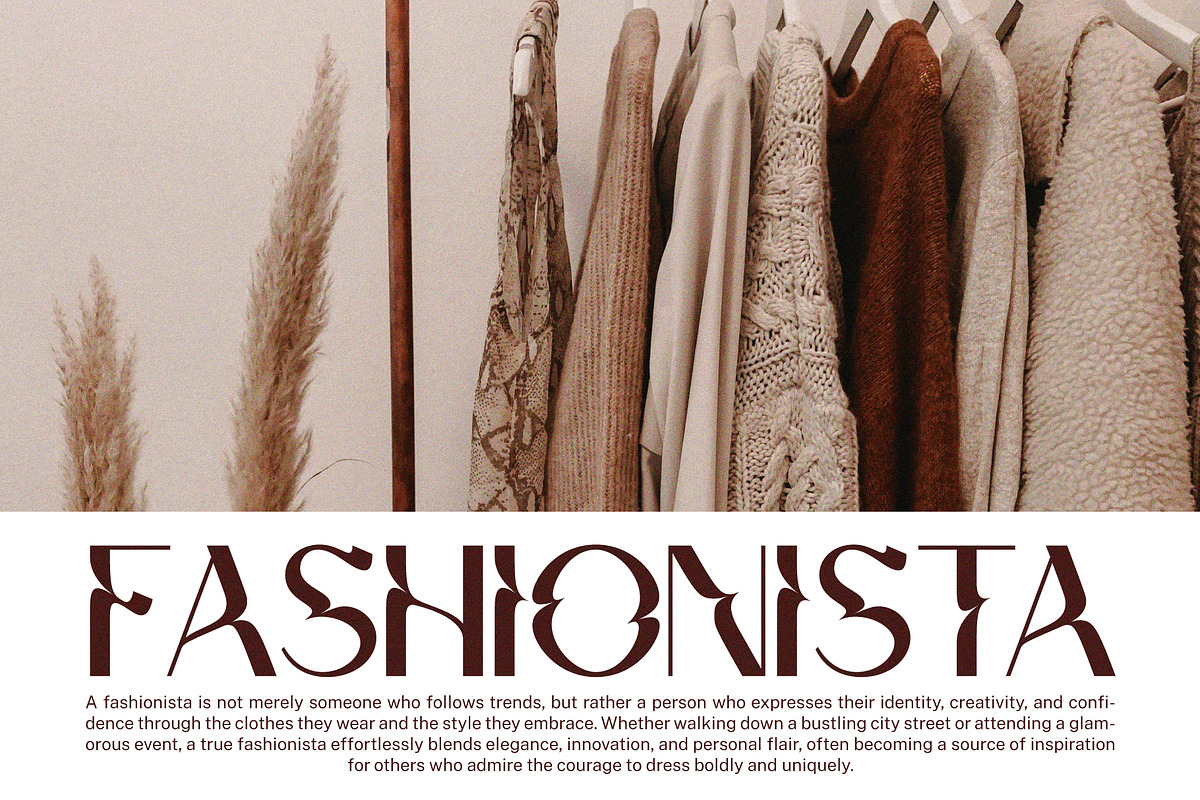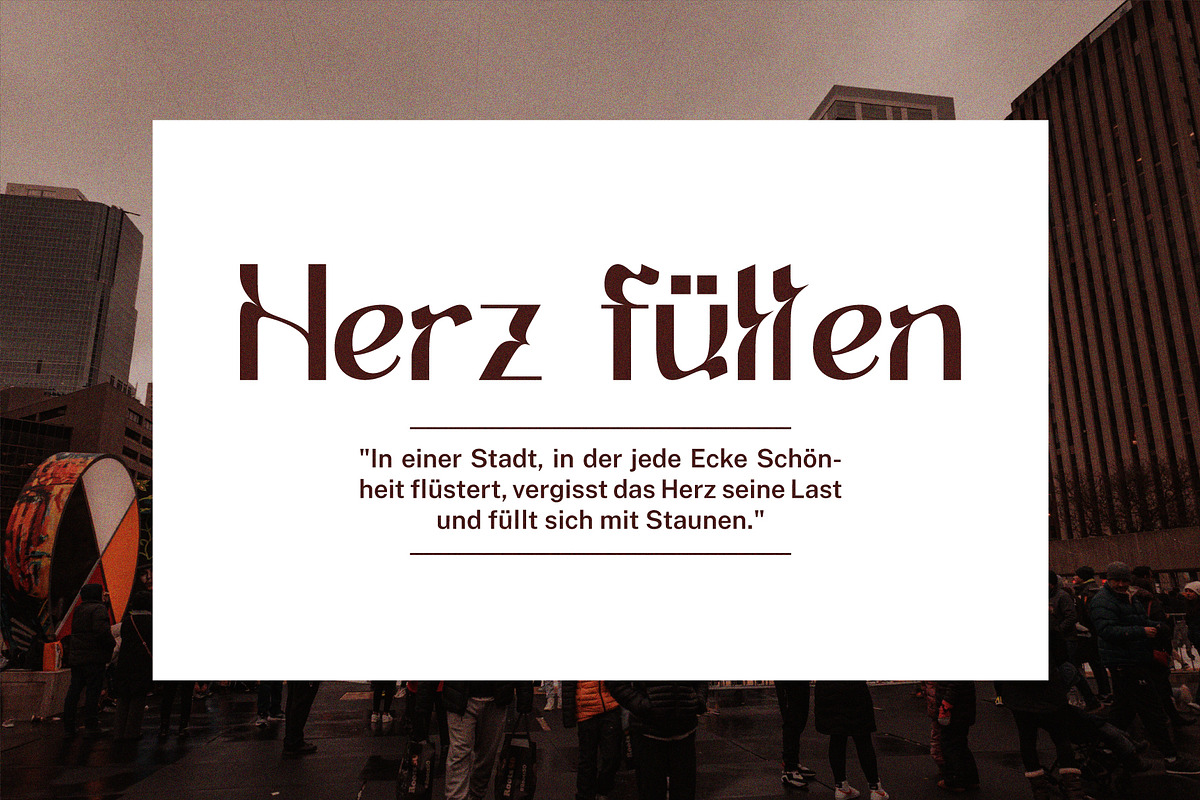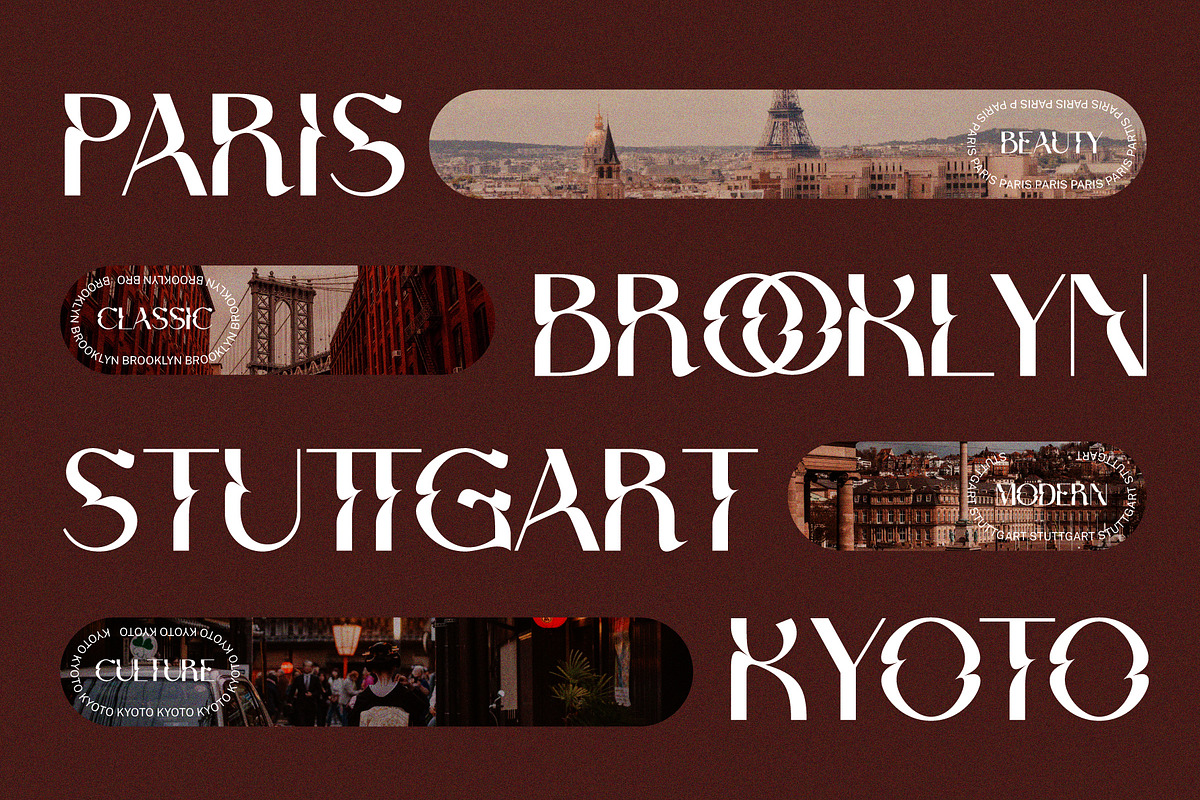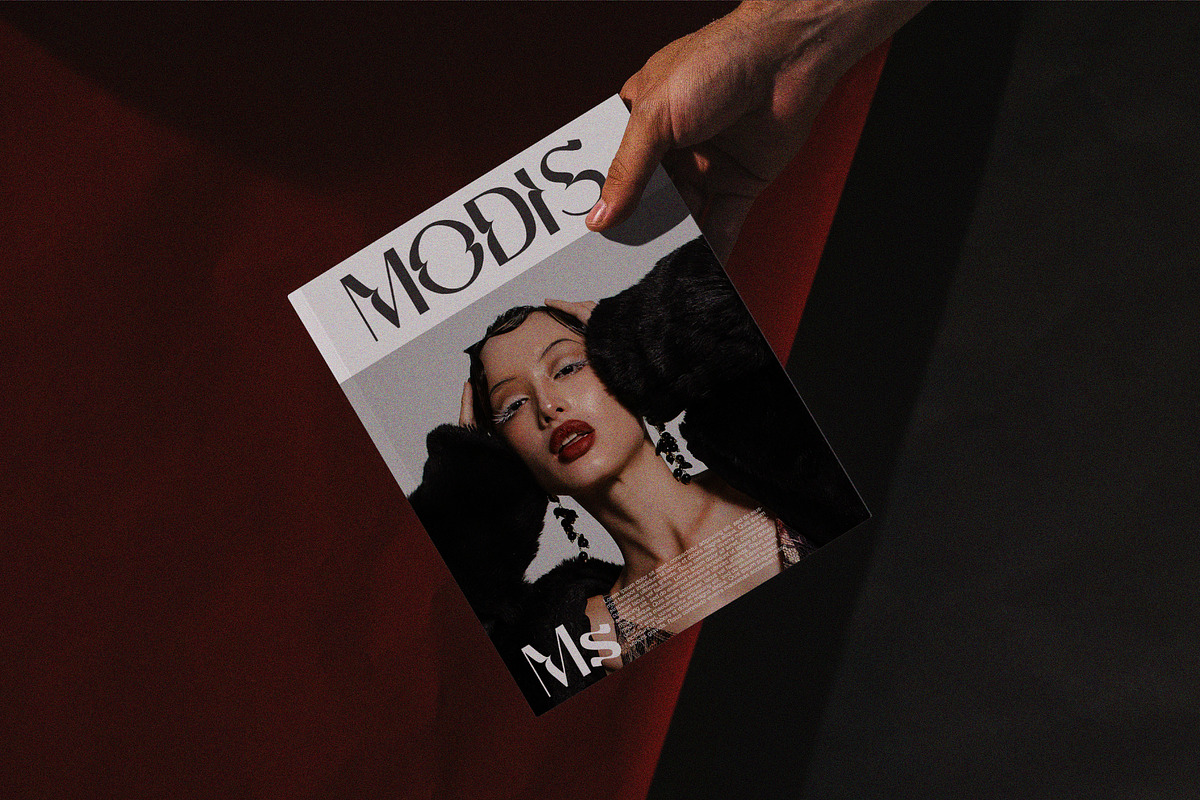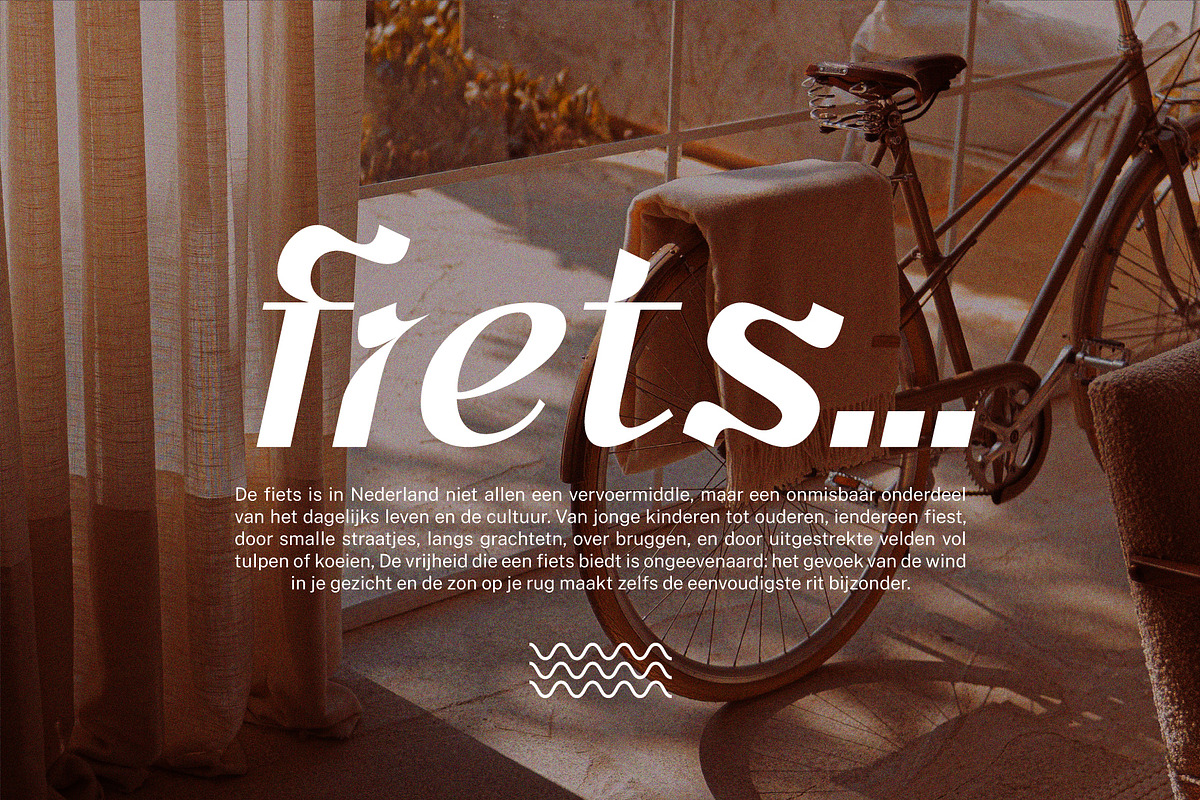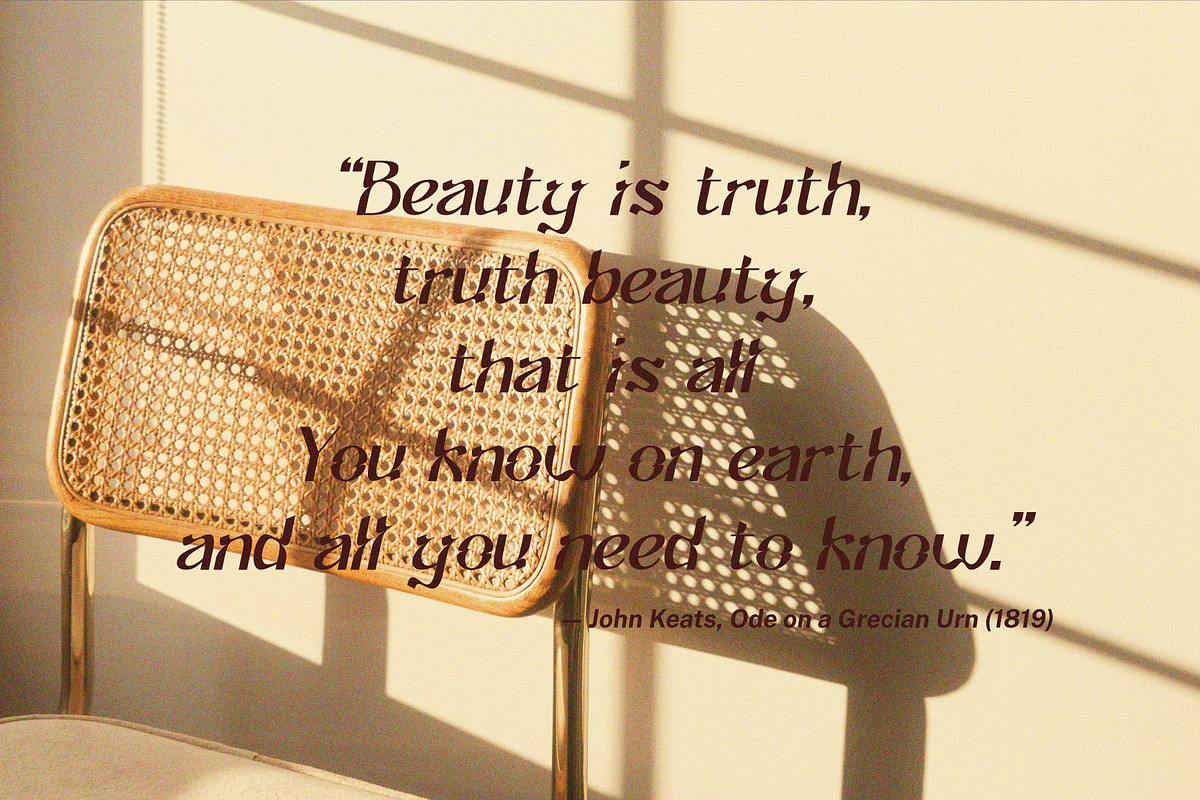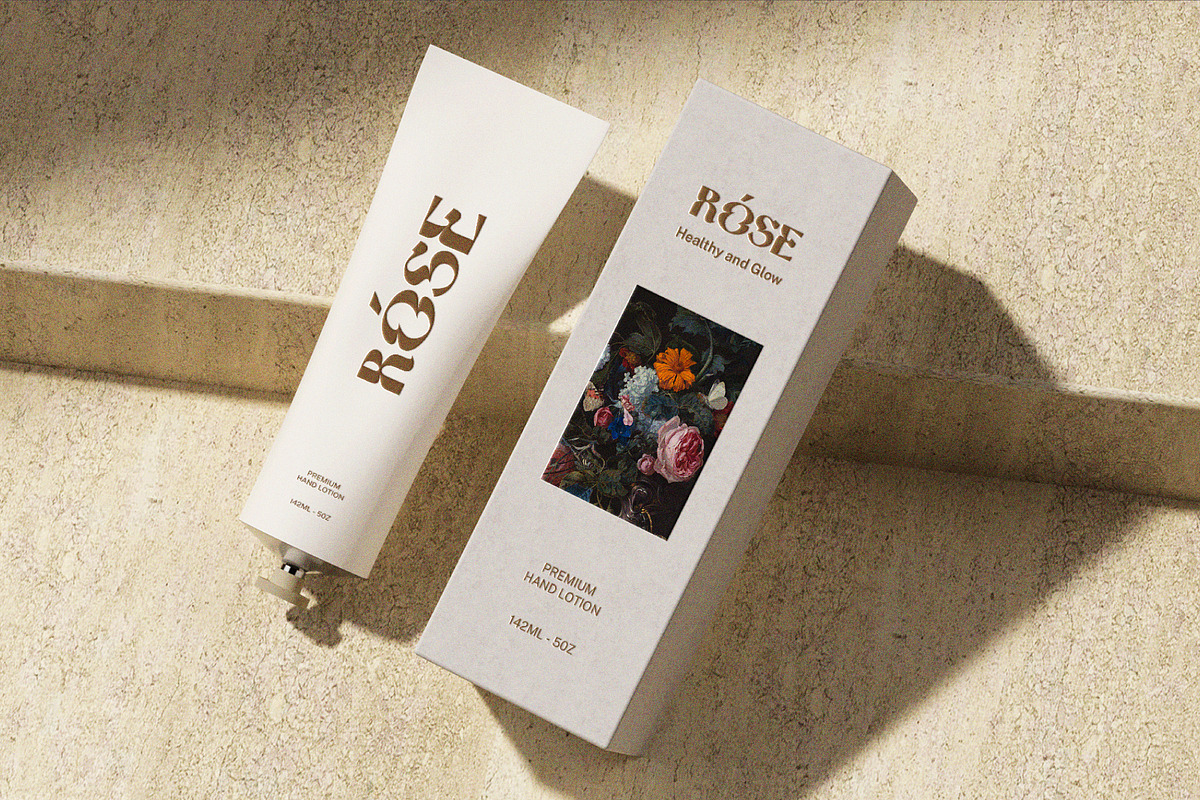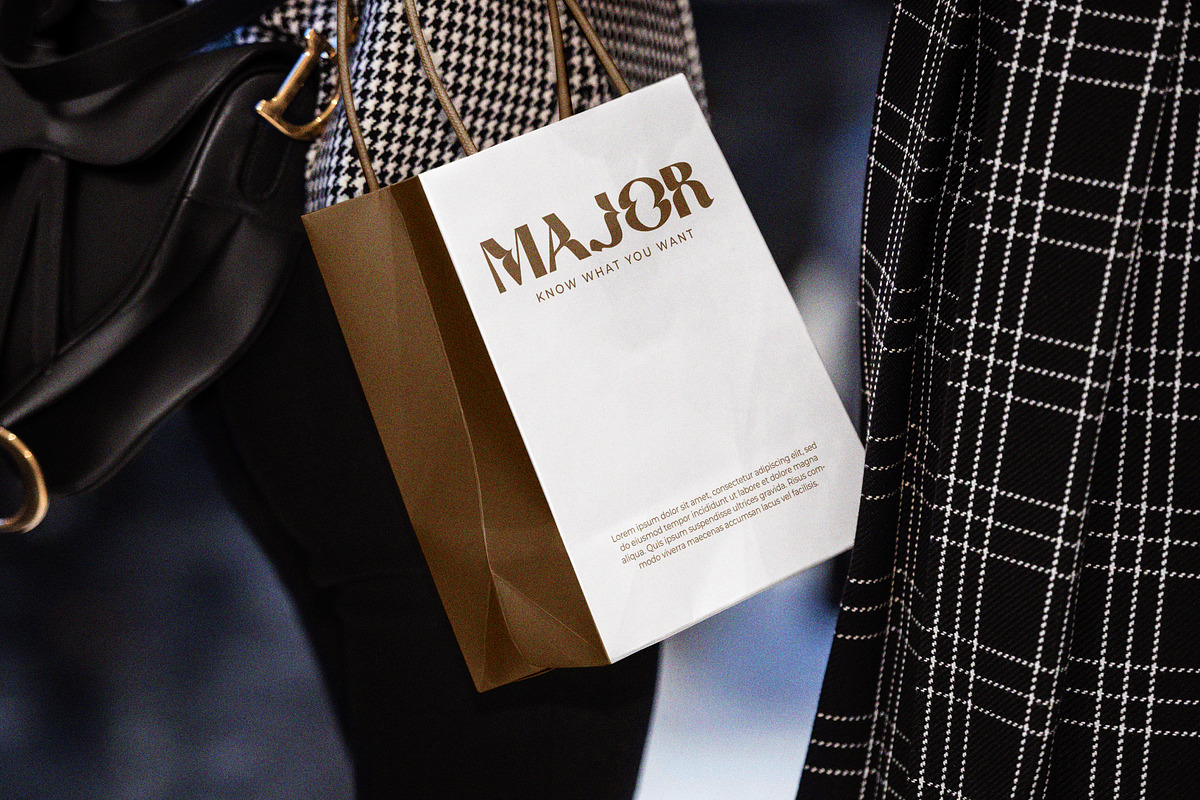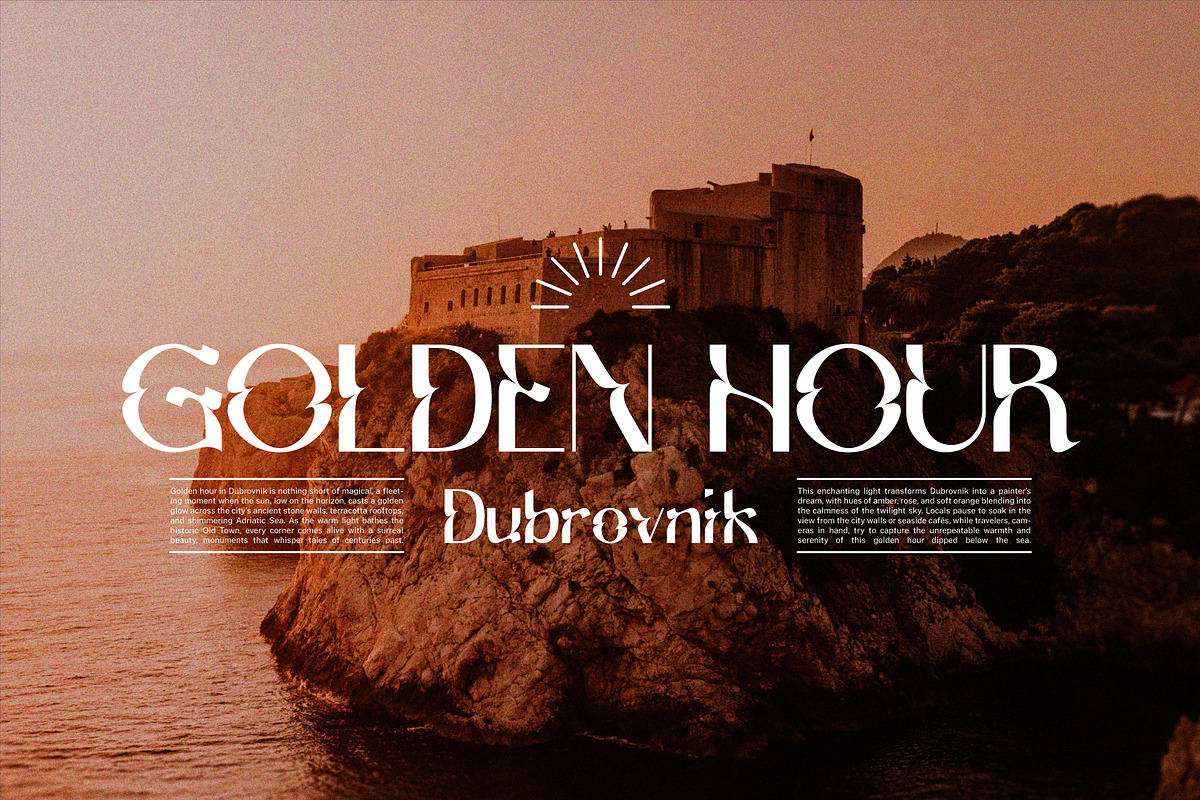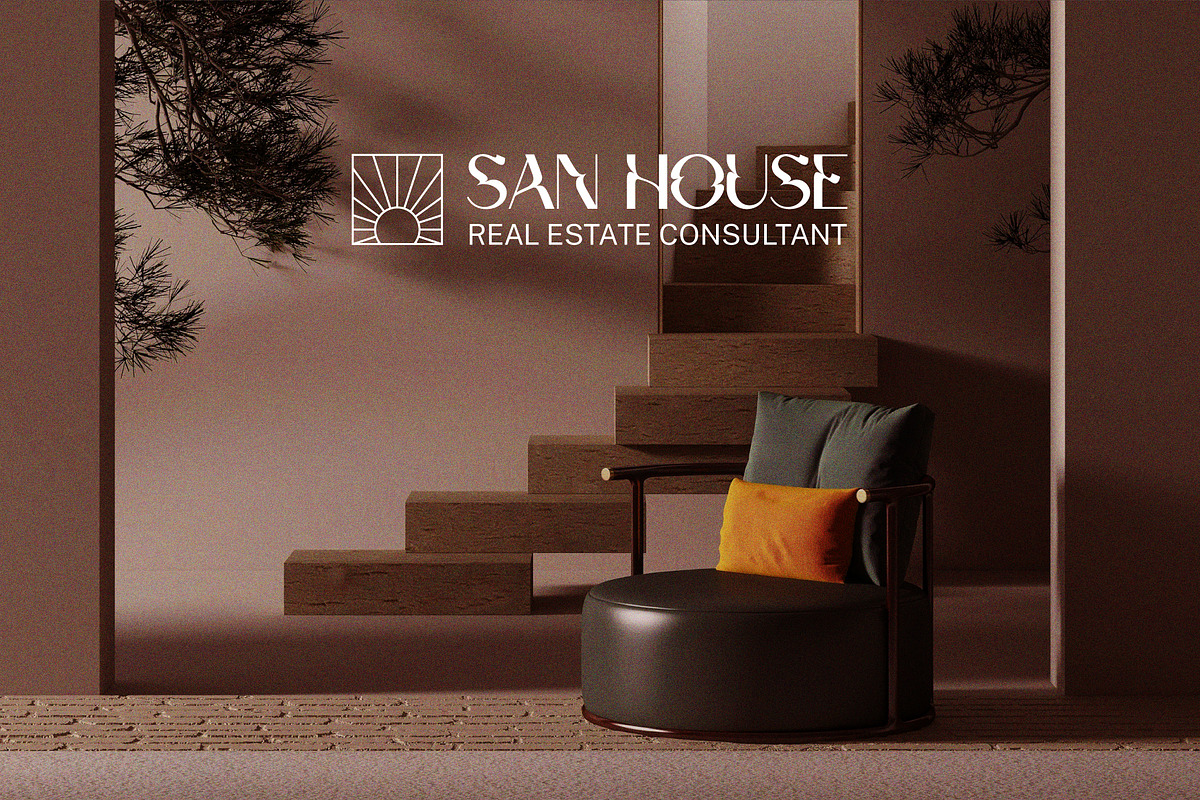
Kaila Moon - Display Sans Serif
Introducing Kaila Moon, a striking modern display font that marries elegance and artistry with a bold experimental edge. Tailored for designers and creatives in search of a distinctive typeface, Kaila Moon showcases a fresh interpretation of letterforms, characterized by high-contrast curves, sculptural cuts, and ornamental details. Ideal for logos, branding, and editorial design, this font demands attention while exuding sophistication. With its unique letterforms and artistic flair, Kaila Moon elevates any project, making it perfect for creative endeavors that aim to make a lasting impression. Kaila Moon comes with uppercase, lowercase, numbers, function, and included multilingual support.